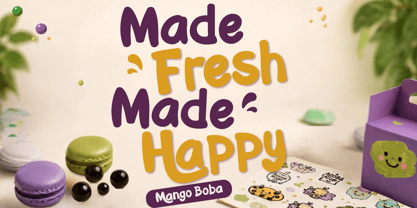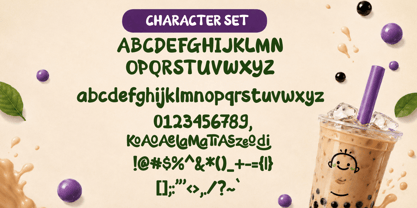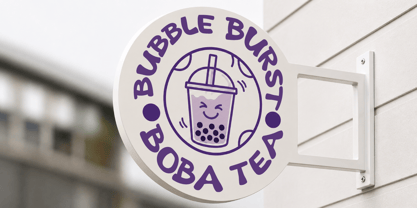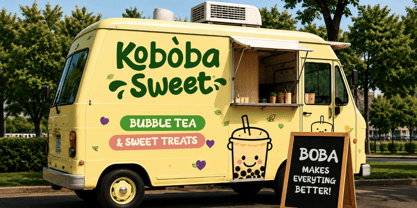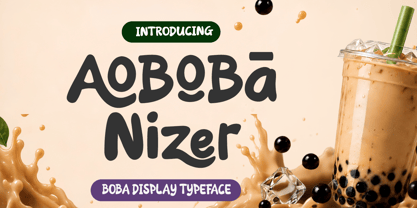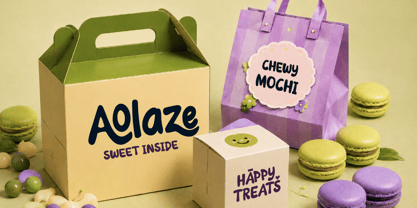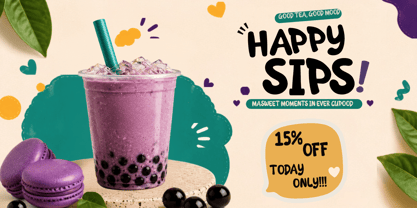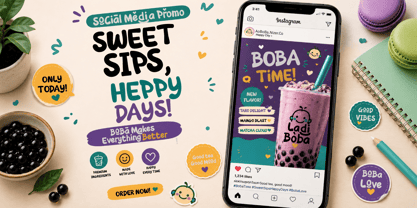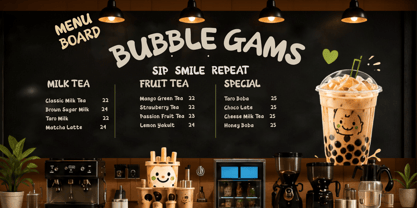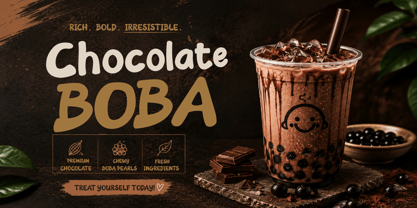
Aoboba Nizer
The Aoboba Nizer Font Family was designed by Lita Faolina and published by Product Type. Aoboba Nizer contains 1 styles. More about this family
Aoboba Nizer is a cute and playful Boba Display Font crafted to bring a fresh, cheerful, and delicious personality to your creative projects. Inspired by bubble tea culture, sweet desserts, and colorful café branding, this font features soft rounded shapes and a friendly handwritten style that instantly catches attention.
Perfect for boba shop logos, milk tea branding, café menus, dessert packaging, food labels, social media promotions, restaurant posters, advertising campaigns, product packaging, merchandise, stickers, and playful headline designs, Aoboba Nizer helps your designs feel warm, modern, and memorable. Its bold character makes every title stand out while maintaining a fun and approachable look.